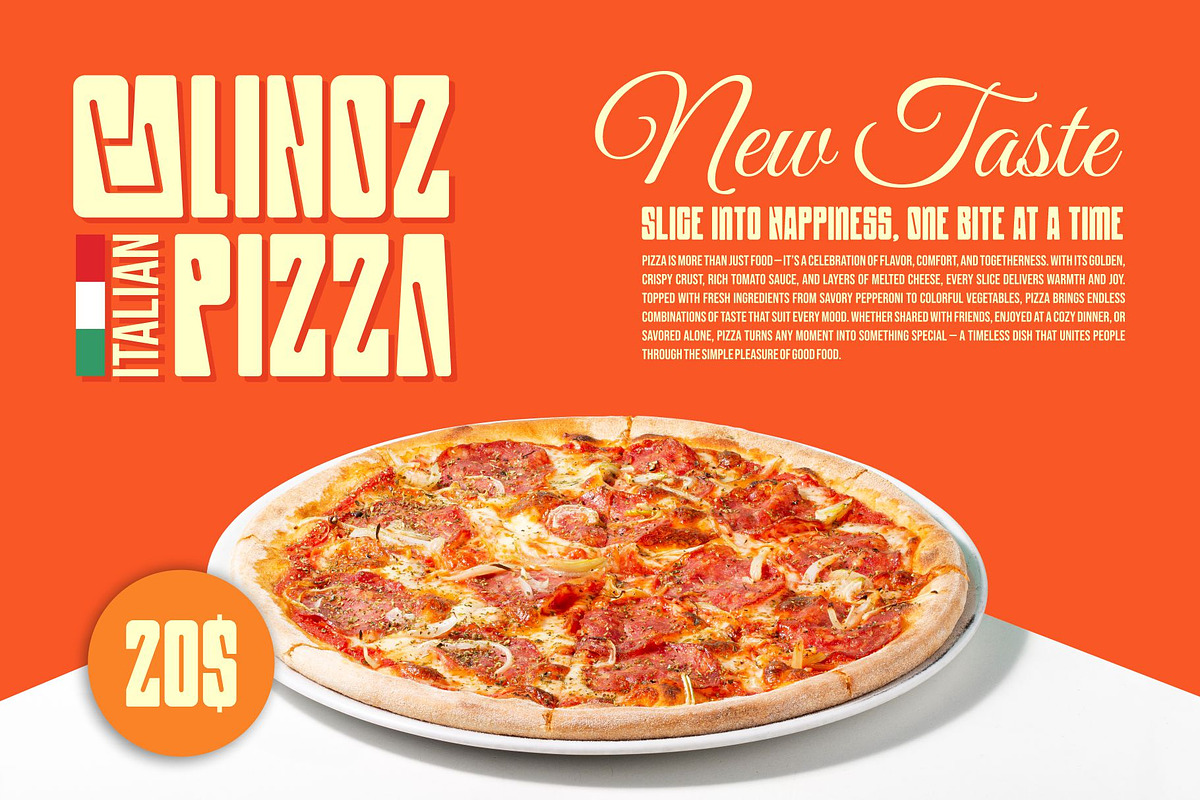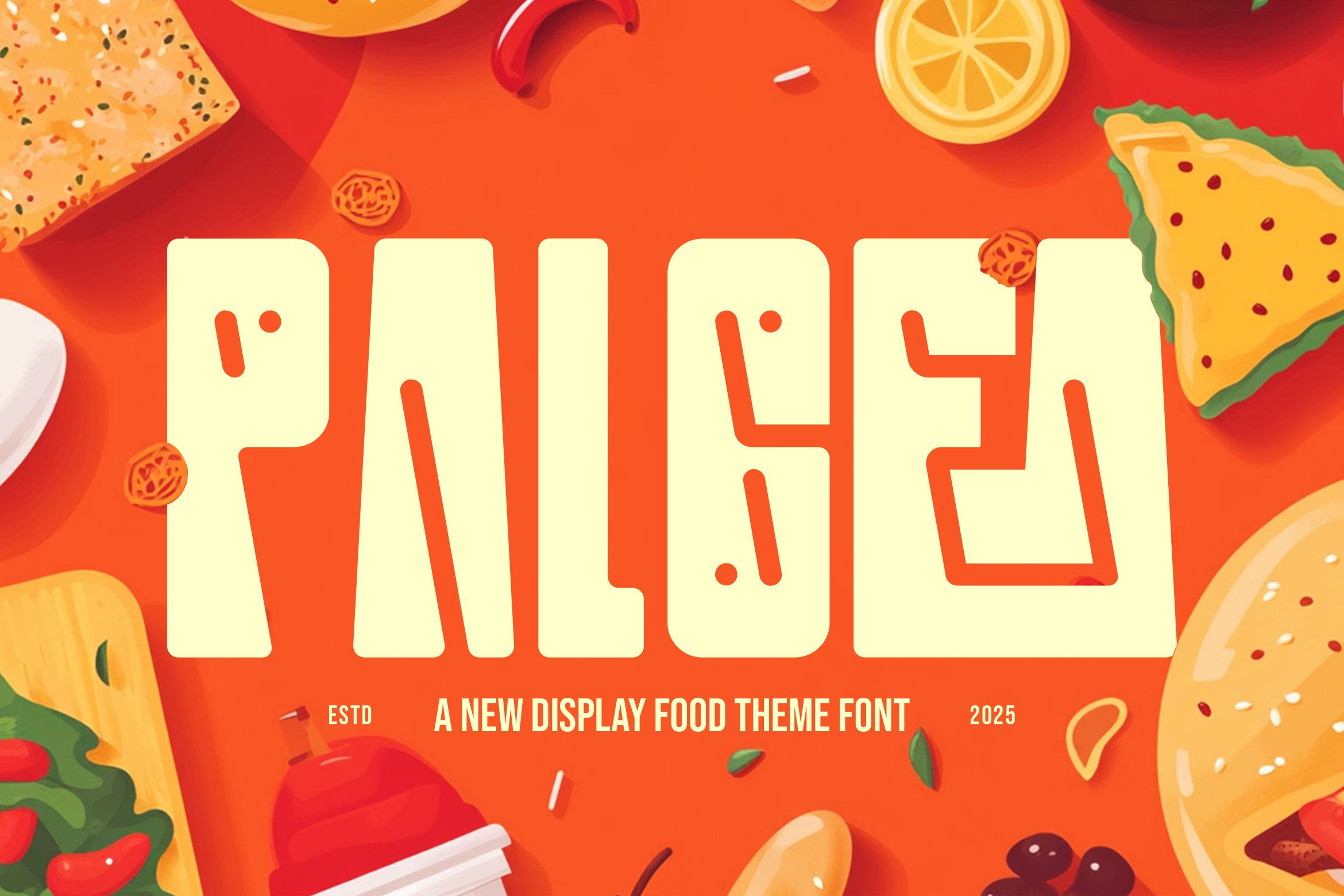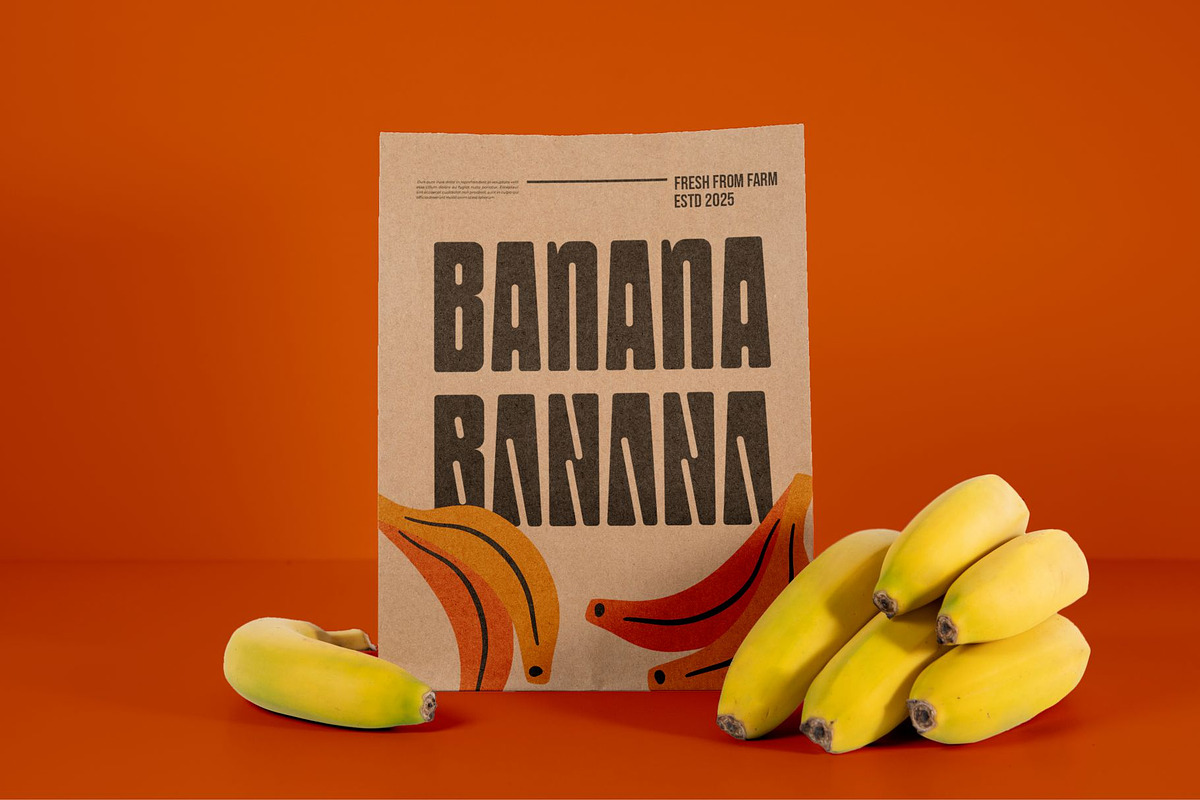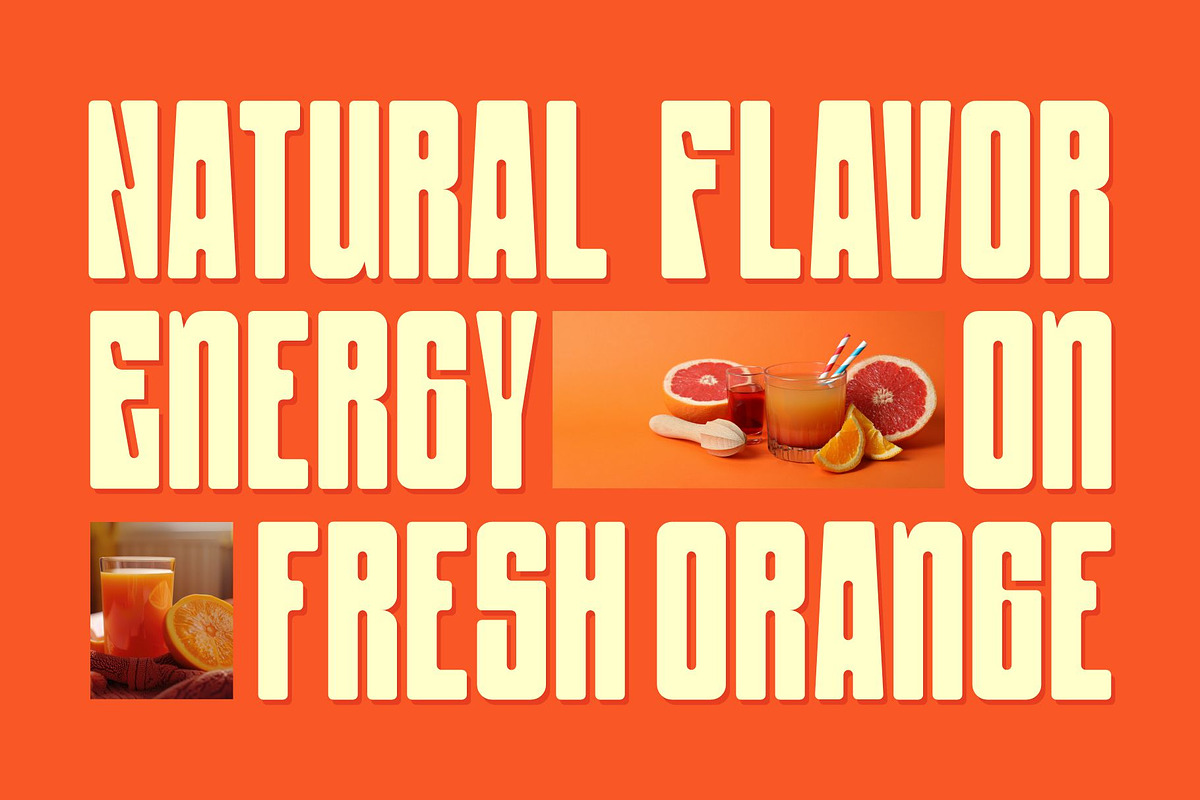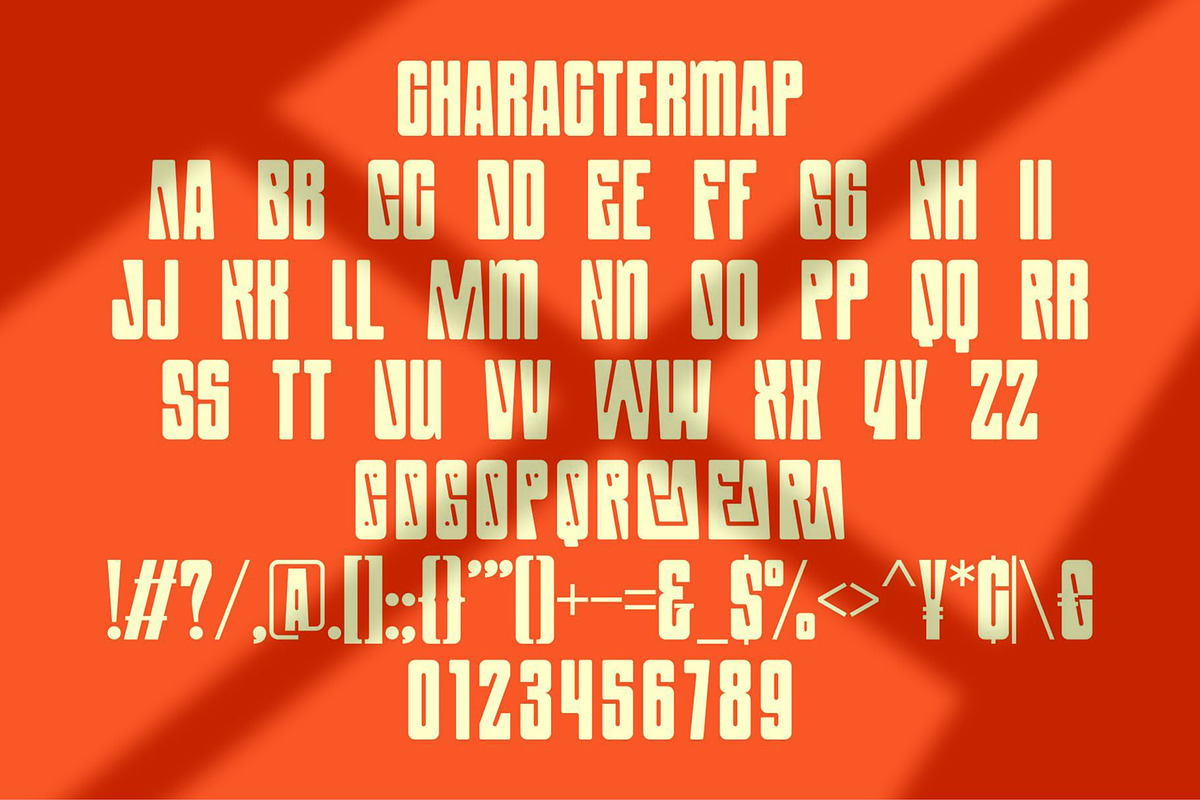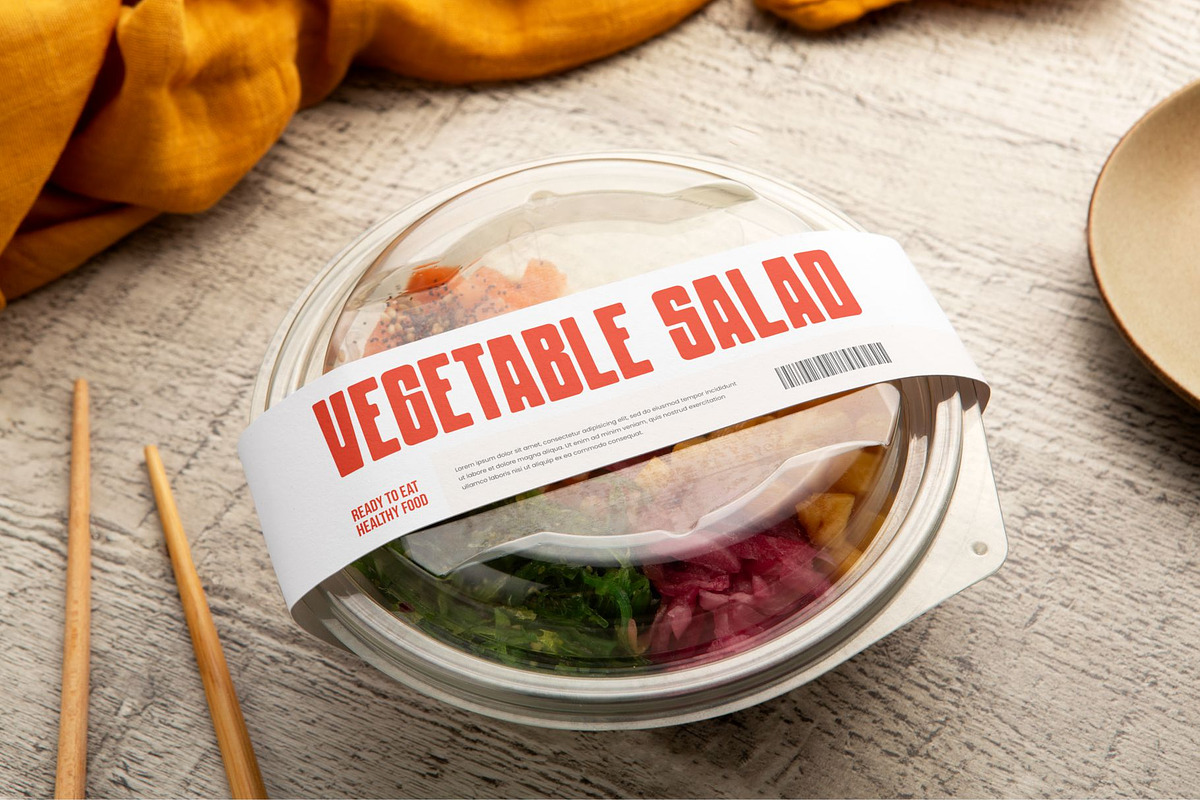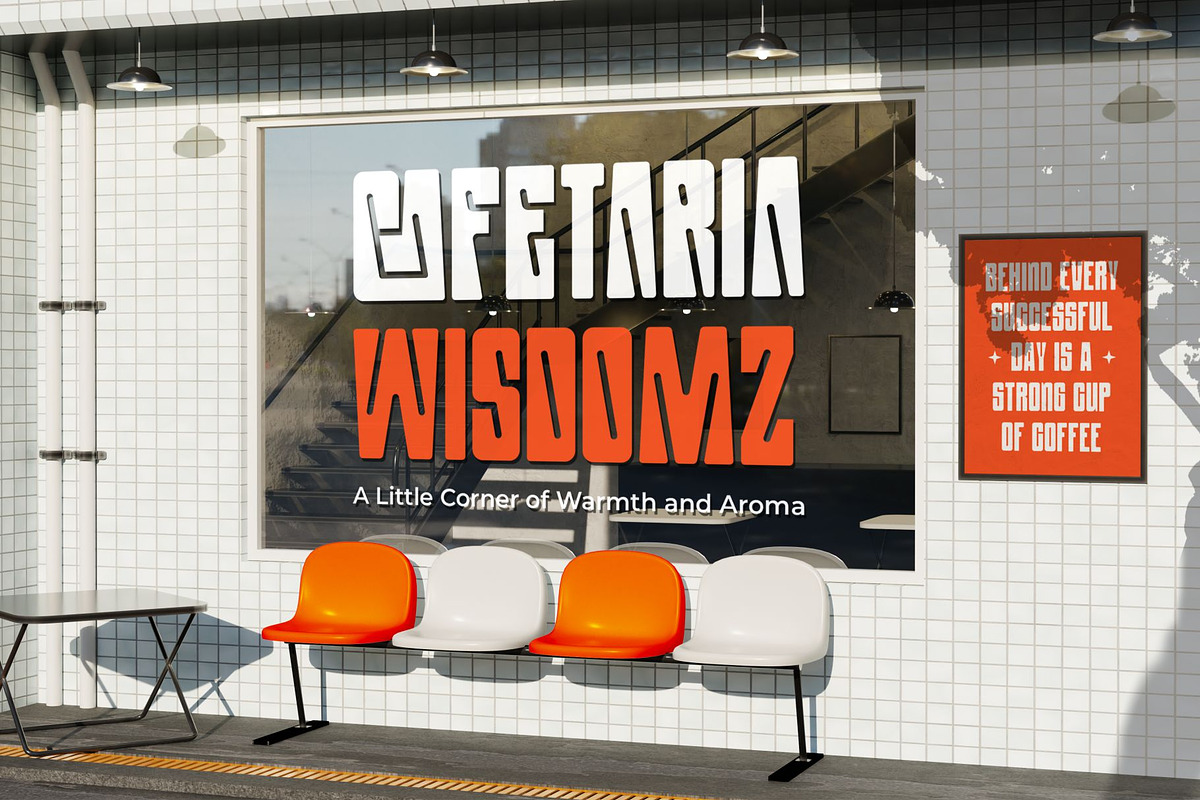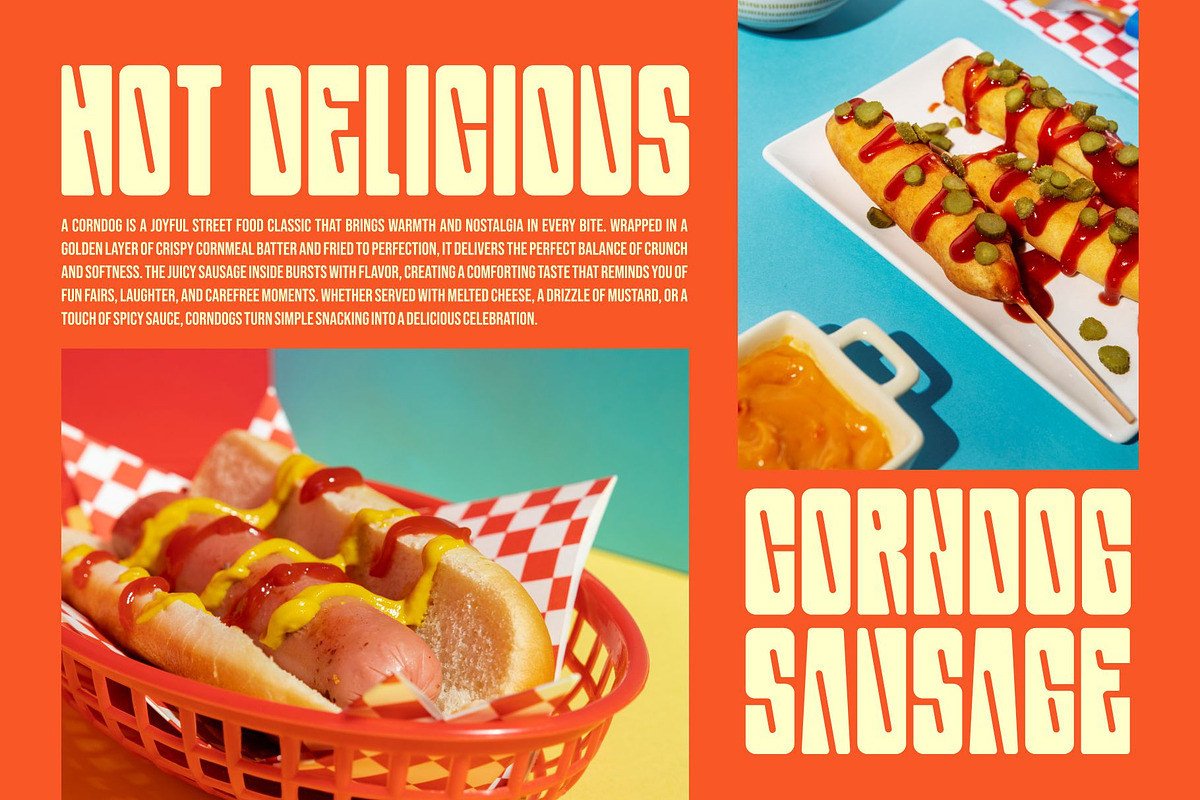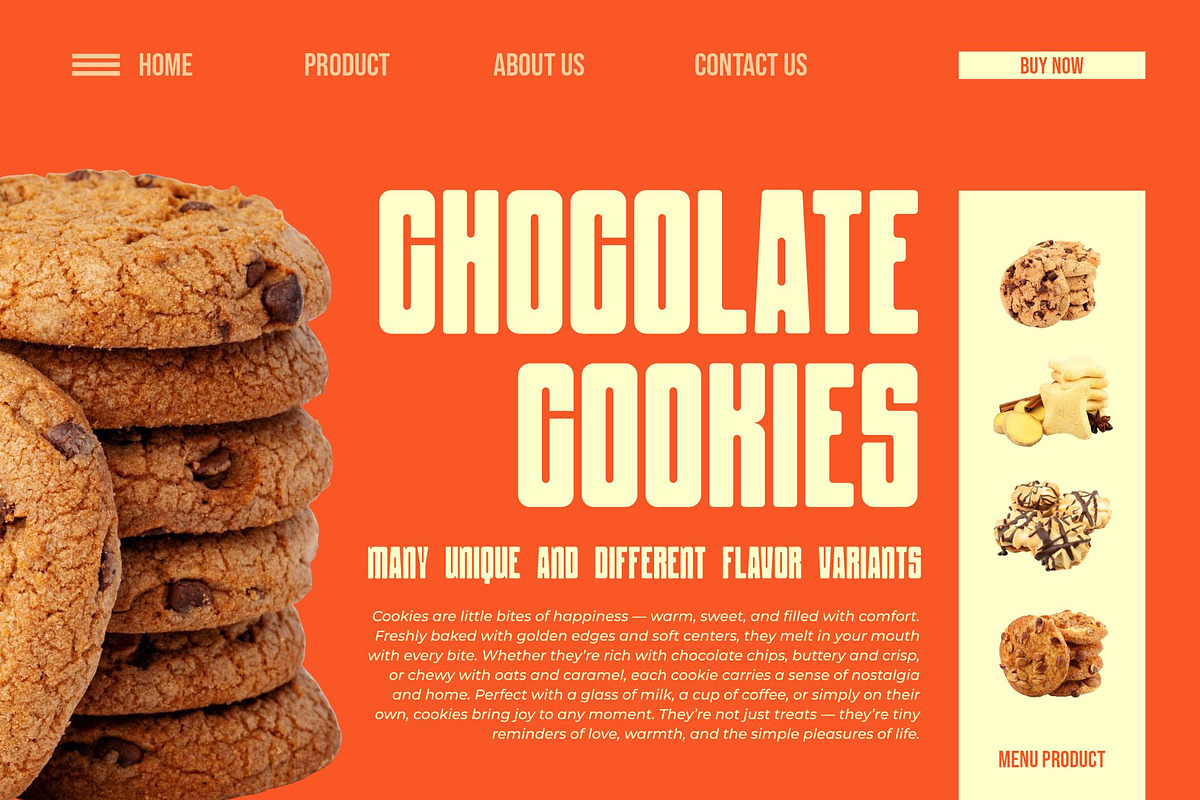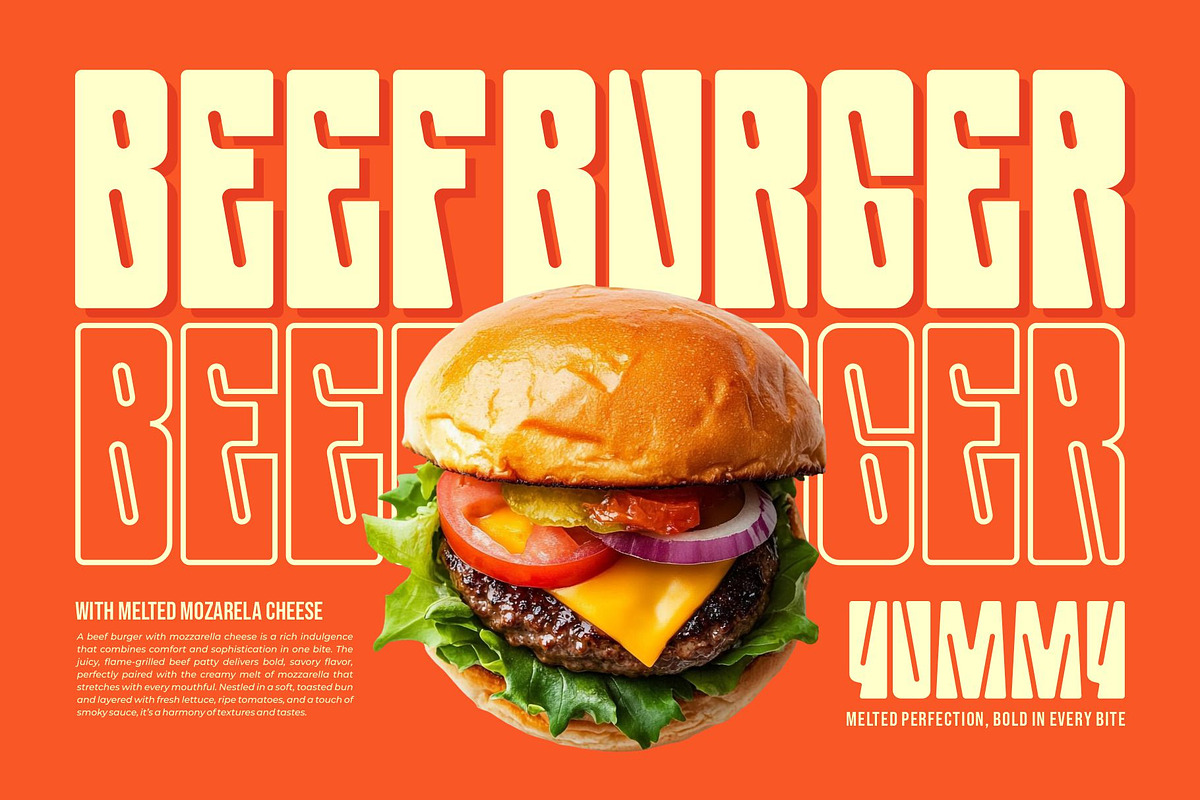
Palgea || Decorative Food Font
Palgea Display Food is a modern and playful font type for all branding and logo designs. This modern and playful Serif font has a beautiful character. This font is suitable for invitation card designs, cool logos, movie titles, movie names, business cards, book titles, brand names, and various other designs. Palgea Display Food is a smooth display font that exudes sophistication and the moment. Its stylish ligatures make this font a perfect partner for any project.